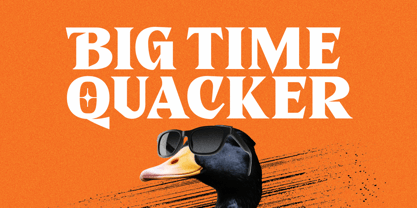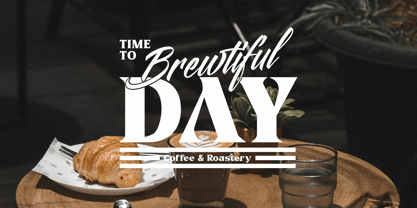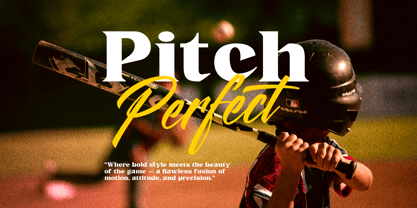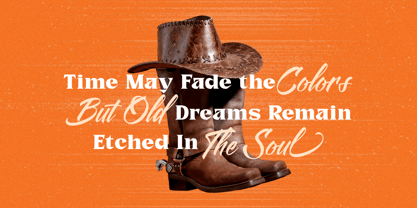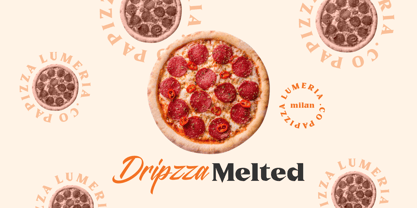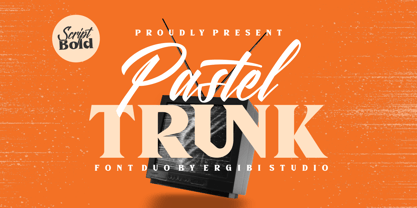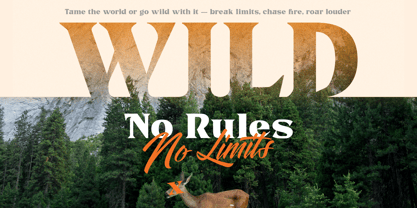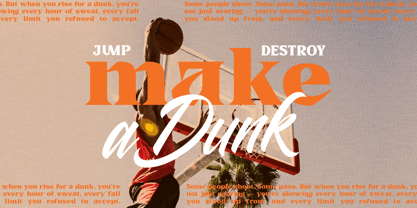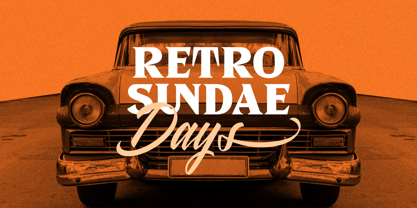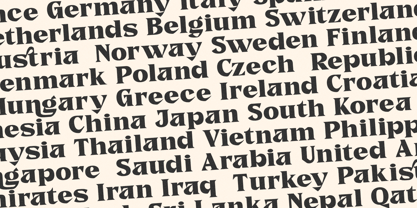
Pastel Trunk
by Ergibi Studio
The Pastel Trunk Font Family was designed by Riyadh Rahman and published by Ergibi Studio. Pastel Trunk contains 2 styles and family package options. More about this family
Pastel Trunk is a bold and expressive font duo that seamlessly blends the nostalgic spirit of retro design with a clean, modern attitude. This unique pairing features a dynamic retro-inspired serif and a smooth, handwritten script, crafted to complement each other in perfect harmony.
The serif brings authority and presence, while the script softens the tone with its human touch, making Pastel Trunk an ideal choice for designs that aim to feel both confident and approachable, timeless yet current. Together, this duo gives you the power to mix elegance with energy, sophistication with playfulness, vintage character with modern taste.